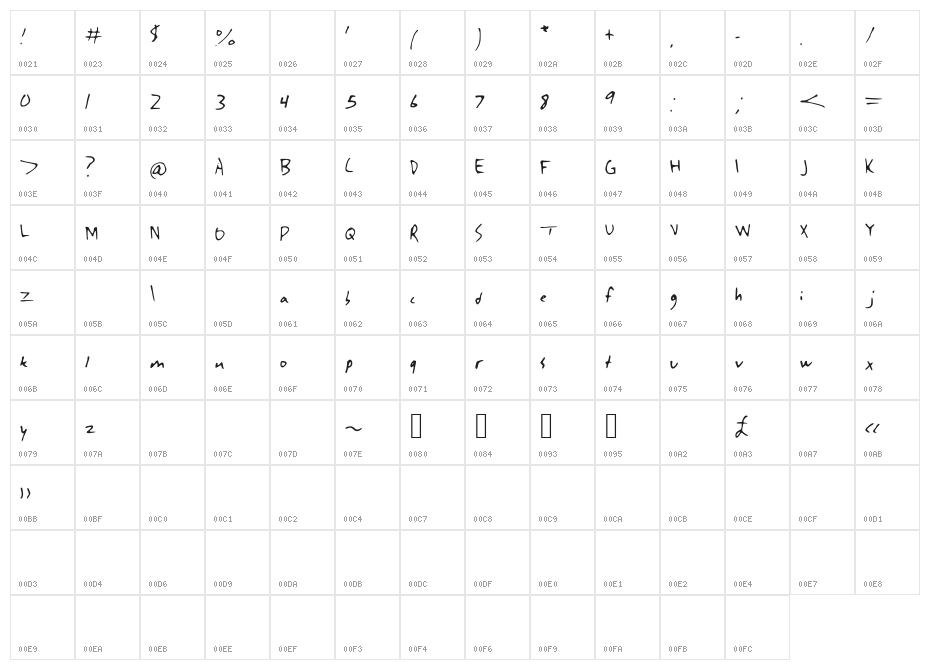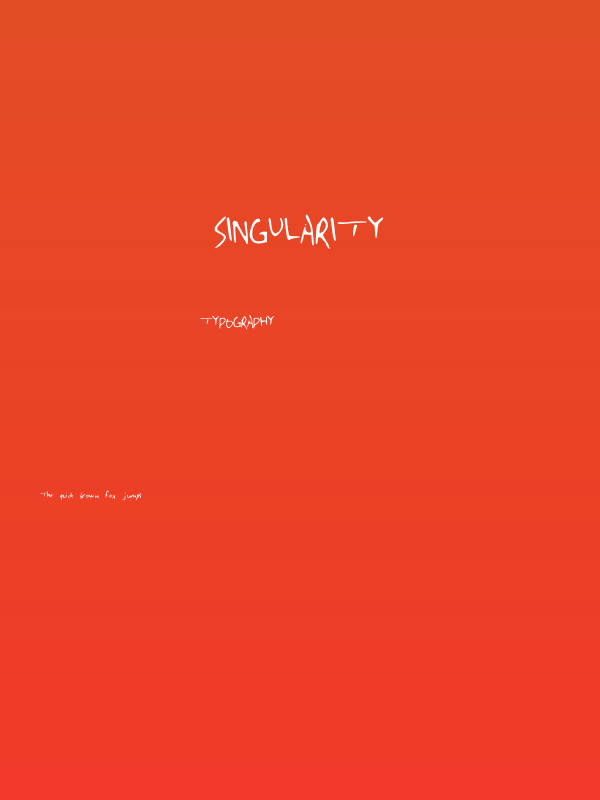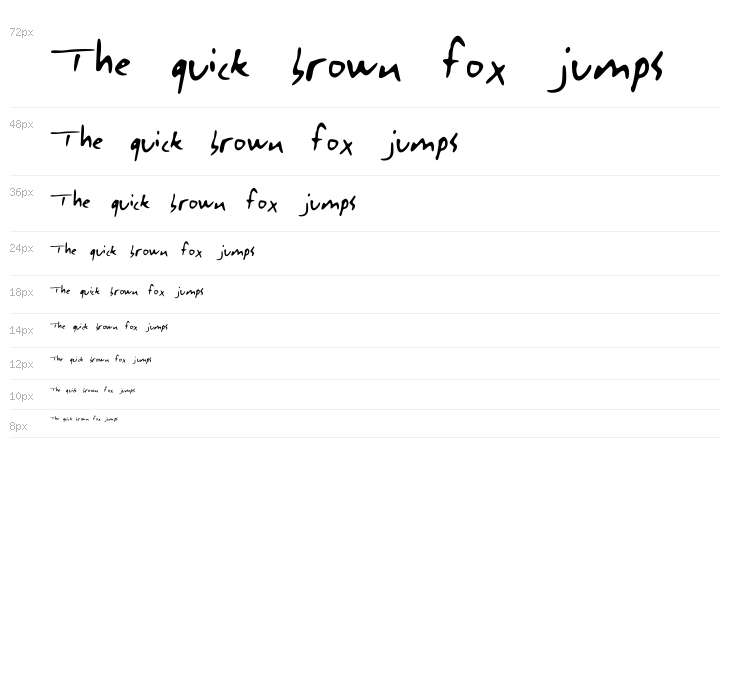
Singularity Font
Singularity Description
This font features a playful, handwritten style with a casual and informal appearance. The characters are slightly irregular, giving it a personal and authentic feel. The uppercase letters are bold and dynamic, while the lowercase letters maintain a consistent flow, enhancing readability. Numbers and special characters are crafted with the same whimsical touch, making them stand out. The overall design is approachable and friendly, suitable for projects that require a human touch.
| Use Case | Headlines, Logos, Informal text |
| Proposed Projects | Ideal for greeting cards, personal blogs, children's books, and creative projects that benefit from a personal touch. |